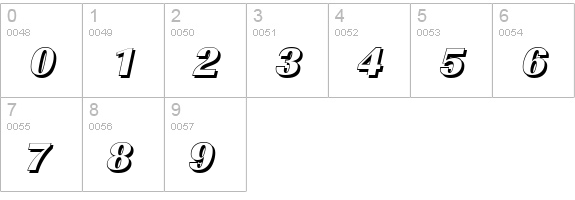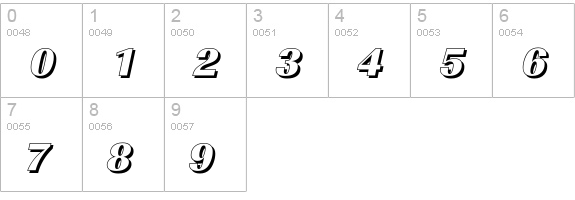
ImperialSh-Heavy-Italic Font Details
ImperialSh-Heavy-Italic is a heavy, high-impact, italic variant in the ImperialSh typeface family \xE2\x80\x94 well suited to high-impact headlines, posters, and display advertising.
ImperialSh-Heavy-Italic font is a bold and stylish typeface that exudes elegance and sophistication. Its heavy italic design conveys a sense of strength and authority, making it perfect for headlines, titles, and other prominent text. With its intricate details and sharp angles, this font commands attention and adds a touch of luxury to any project. What sets ImperialSh-Heavy-Italic font apart is that it is completely free to download at FontsMarket.com. This means that you can enhance your designs with this premium font without any cost! Whether you're working on a branding project, a poster design, or a website, ImperialSh-Heavy-Italic font will elevate your work and leave a lasting impression. Download it now and unleash the power of this stunning typeface in your creative endeavors.